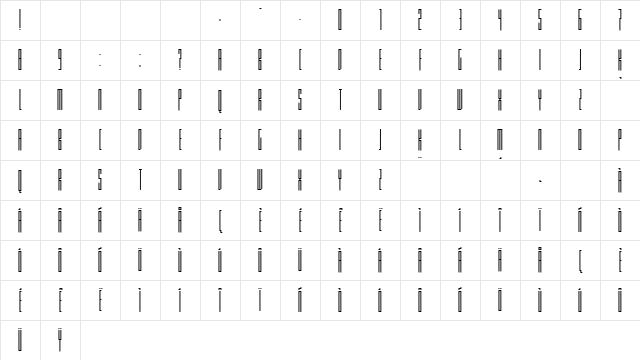
Knifer 100 Regular
Foundry: Marivo
Designer: Marko Jovanovac, Maja Leko
Design Context for Knifer 100
Knifer 100 is a composed and adaptable typeface that performs quietly and consistently across a wide range of design contexts.